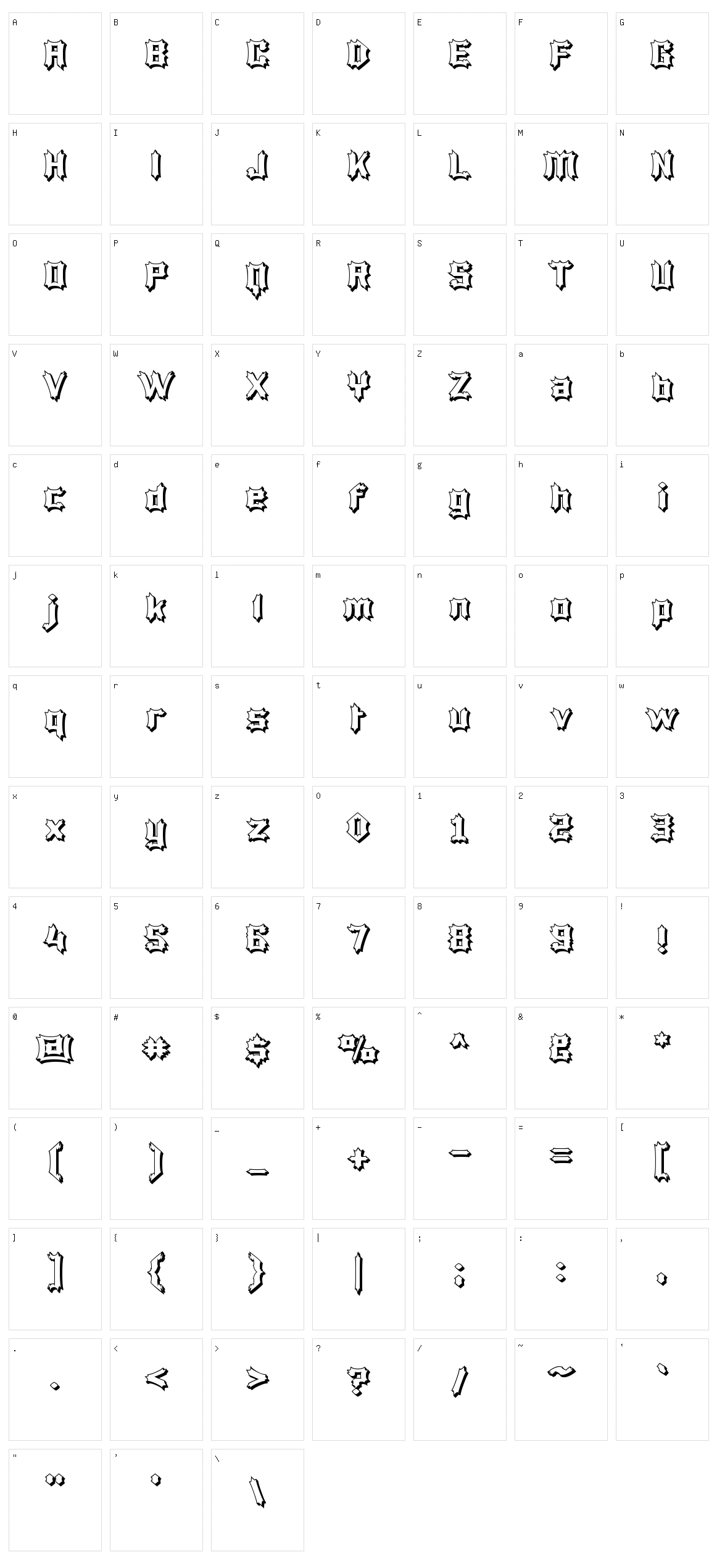
The free font Luciferius is carefully designed by Apostrophic Labs, showcasing a thoughtful balance of creativity and usability and belongs to the Gothic font family. When you download the ZIP file, it contains only 167.99 KB of font files, making it lightweight and quick to download. Please review the license details below to understand permitted usage and distribution rights. If license information is not available, we recommend using this font for personal projects only or contacting the author directly for commercial usage permissions.